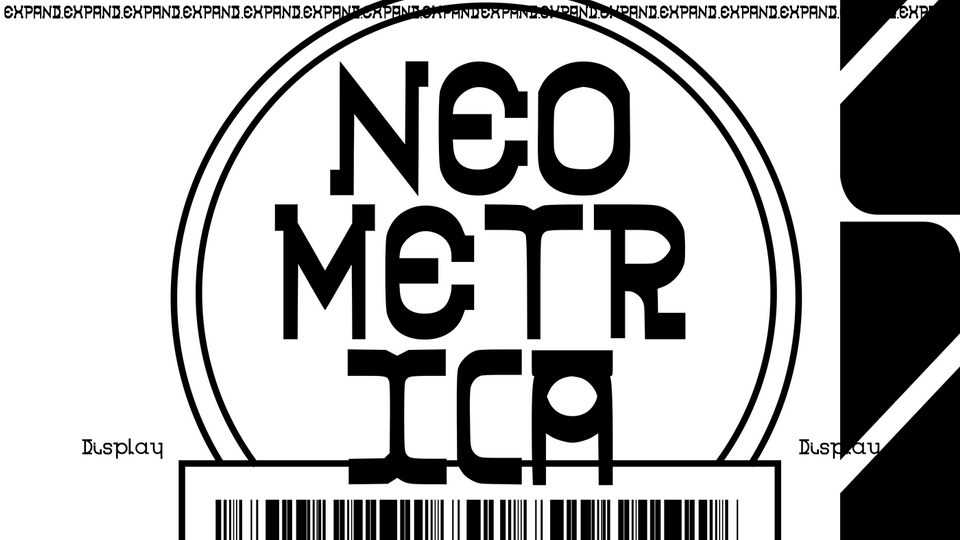
Download Neometrika font, a new exploration project that was mainly inspired by ancient Greek characters and church writings brought into a more minimalistic modern aesthetic.